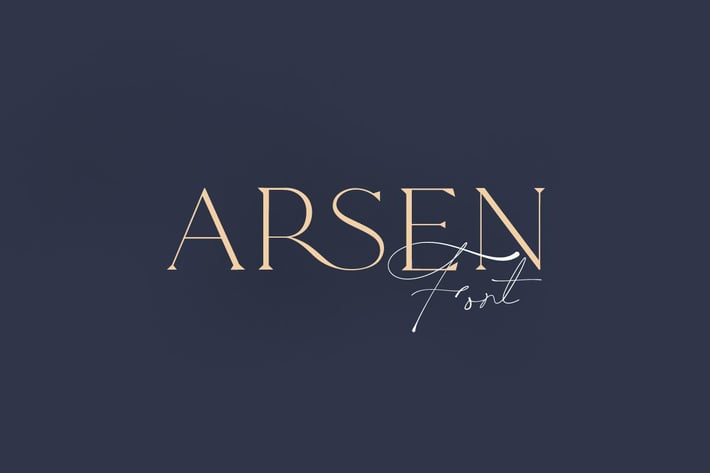
Arsen Font Duo
Introducing Arsen font!
Arsen is perfect font duo with two different character. Both fonts complete each other and works perfect together, make your text looks beautiful. With modern script style this font will perfect for many different project ex: Instagram post, signature logo, watermark, quote, blog header, poster, wedding, branding, logo, fashion, apparel, letter, invitation, stationery, etc.
Foreign languages support: ÀÁÂÃÄÅÆÇÈÉÊËÌÍÎÏÐÑÒÓÔÕÖØÙÚÛÜÝßàáâãäåæçèéêëìíîïðñòóôõöøùúûüýÿ